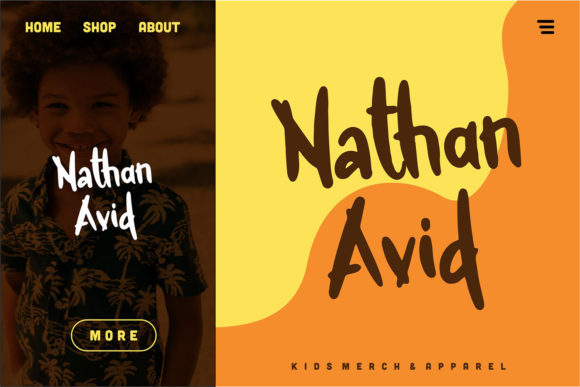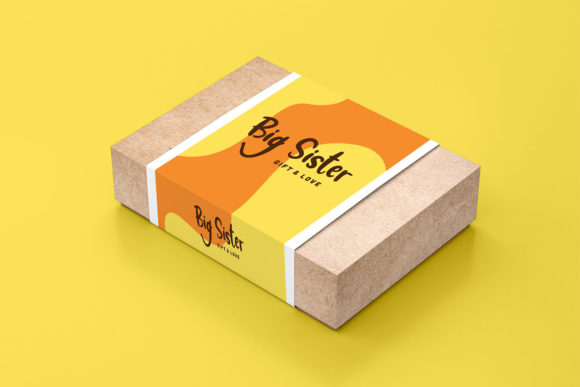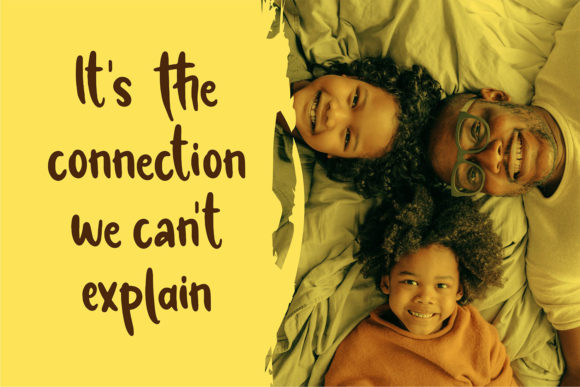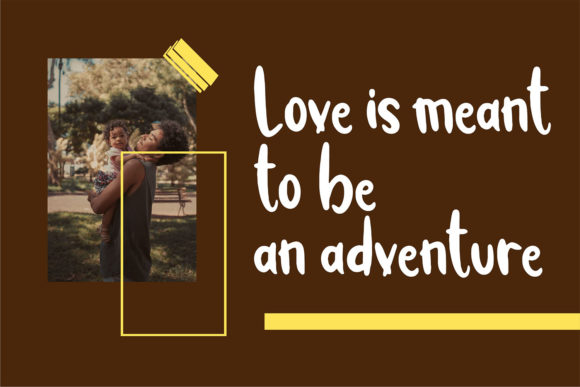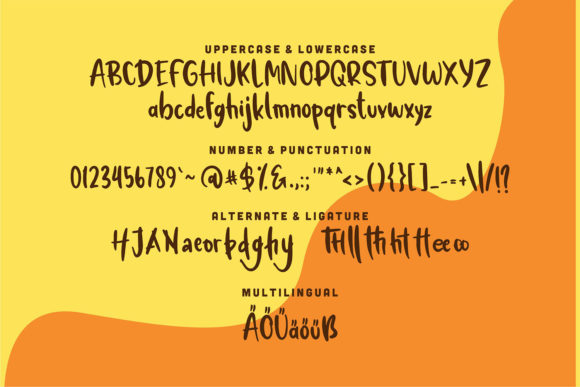
Introducing Beclay Font: The Perfect Addition to Your Design Arsenal
Are you a designer or crafter looking for a unique and stylish font to elevate your designs? Look no further than Beclay Font, a cool and paint-brushed display font that’s sure to make your creations stand out. With its stunning appearance and versatility, Beclay is the perfect choice for a wide range of design projects, from wedding invitations and thank you cards to quotes, greeting cards, logos, business cards, and more.
What Makes Beclay Font So Special?
Beclay Font is a one-of-a-kind display font that’s been carefully crafted to give your designs a customized touch. Its paint-brushed texture gives it a distinctive, hand-crafted feel that’s perfect for designers who want to add a personal touch to their work. Whether you’re creating wedding invitations, social media graphics, or business cards, Beclay Font is sure to make your designs look professional and visually appealing.
Key Features of Beclay Font
- Cool and paint-brushed texture: Beclay Font features a unique paint-brushed texture that gives it a distinctive, hand-crafted feel.
- Display font: Beclay is a display font, making it perfect for headlines, titles, and other design elements that need to make a statement.
- Versatile: Beclay Font can be used for a wide range of design projects, from wedding invitations and greeting cards to logos and business cards.
- Customized touch: Beclay Font is perfect for designers who want to add a personal touch to their work.
Use Cases for Beclay Font
Beclay Font is a versatile font that can be used for a wide range of design projects. Here are some use cases to get you started:
- Wedding Invitations: Beclay Font is perfect for wedding invitations, adding a touch of elegance and sophistication to your designs.
- Thank You Cards: Use Beclay Font to create beautiful thank you cards that will make your recipients feel special.
- Quotes: Beclay Font is a great choice for quotes, adding a touch of personality and style to your designs.
- Greeting Cards: Beclay Font can be used to create stunning greeting cards for any occasion.
- Logos: Use Beclay Font to create unique and memorable logos for your clients or business.
- Business Cards: Beclay Font is perfect for business cards, adding a touch of professionalism and style to your designs.
Why Designers and Crafters Love Beclay Font
Beclay Font has quickly become a favorite among designers and crafters, and for good reason. Here are some reasons why:
- Unique and stylish: Beclay Font is a one-of-a-kind font that’s sure to make your designs stand out.
- Versatile: Beclay Font can be used for a wide range of design projects, making it a great addition to any design arsenal.
- High-quality: Beclay Font is a high-quality font that’s been carefully crafted to ensure that it looks great in any design.